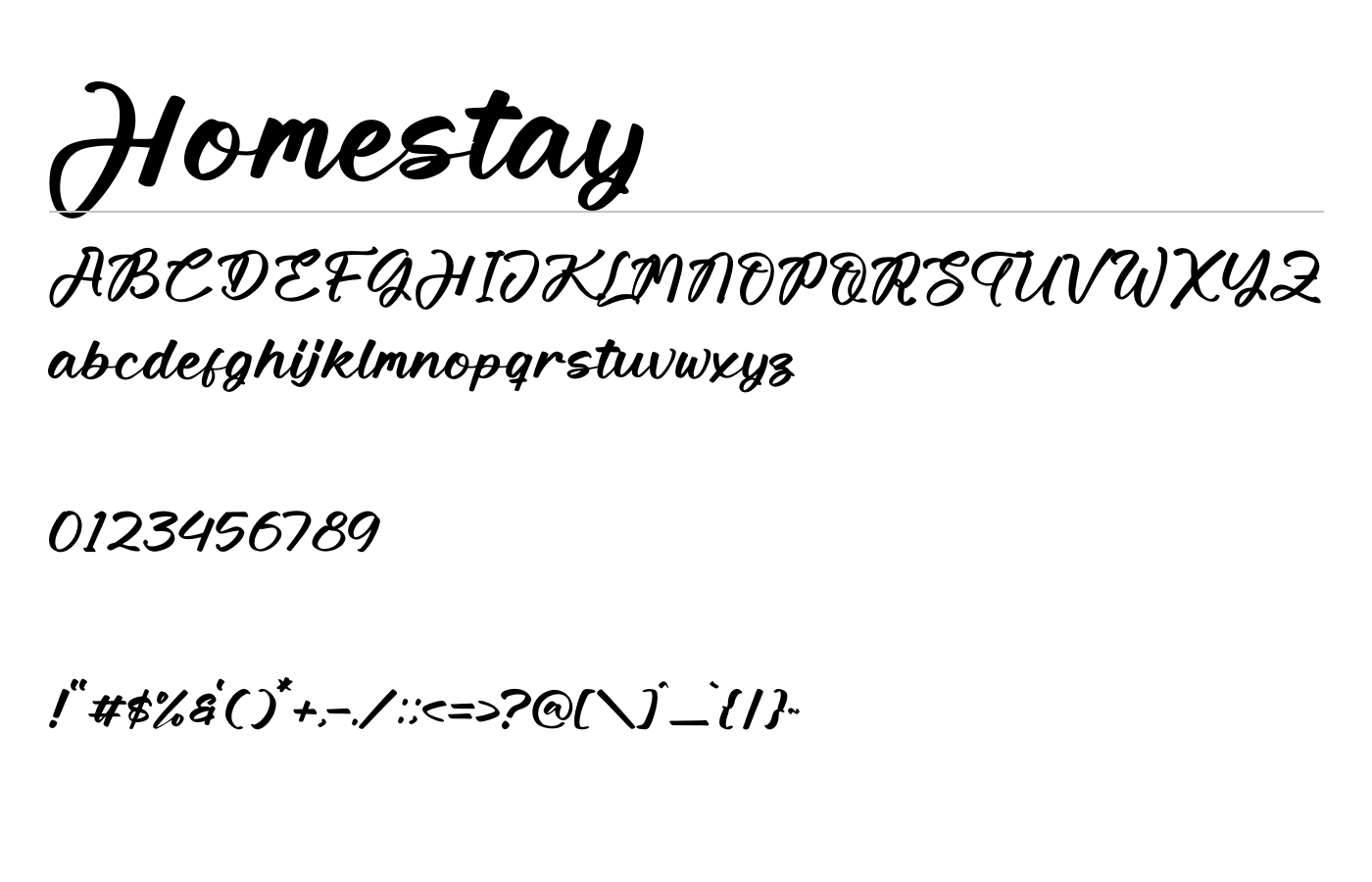
Homestay is a charming script font with smooth, flowing curves and a casual, handwritten feel. Its medium weight and balanced stroke contrast make it friendly and approachable, ideal for adding a personal touch to branding, invitations, or social media graphics. This font’s warmth and legibility suit creative projects that want to convey authenticity and style without being overly formal.
Homestay Font
About Homestay Font